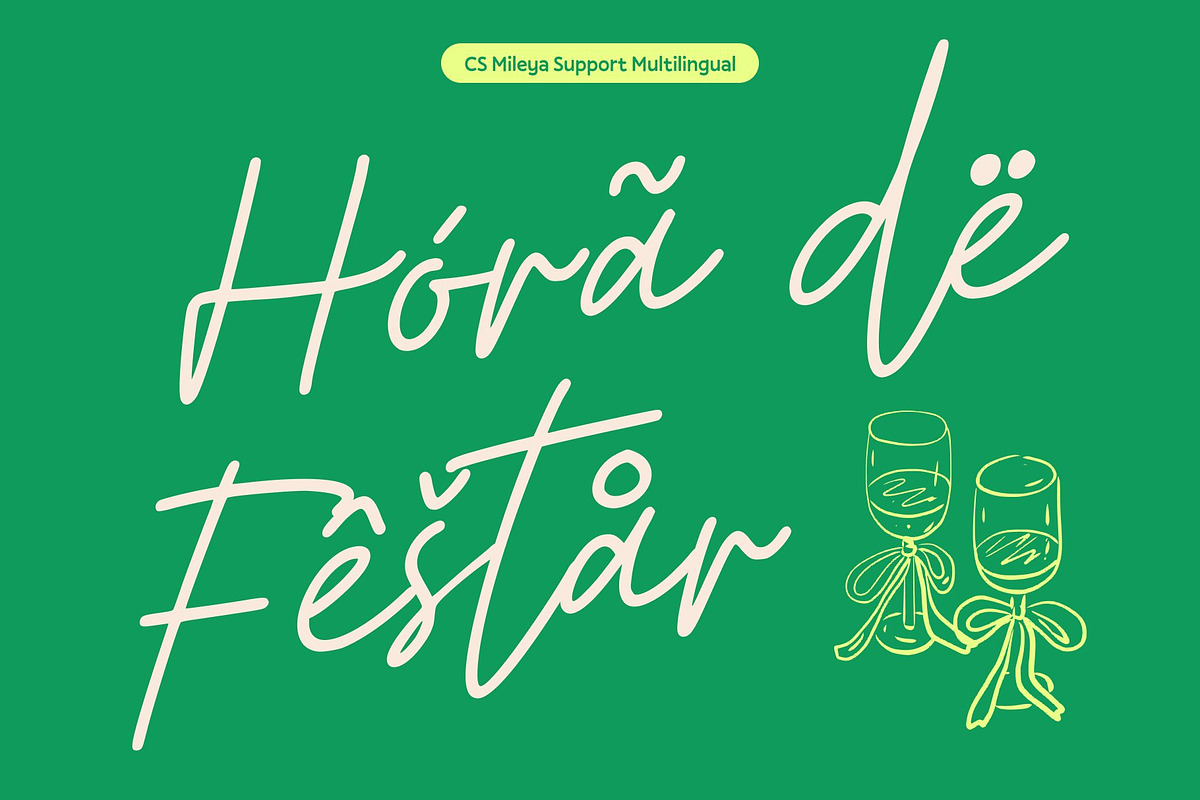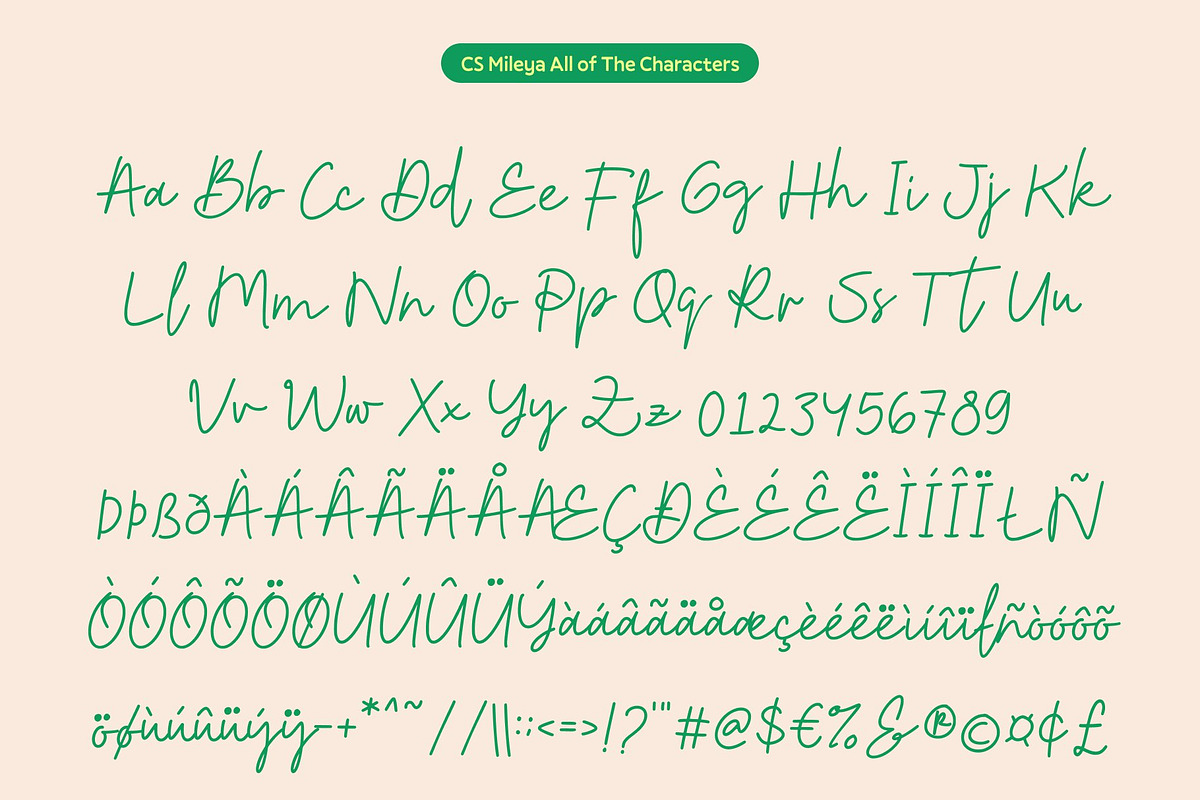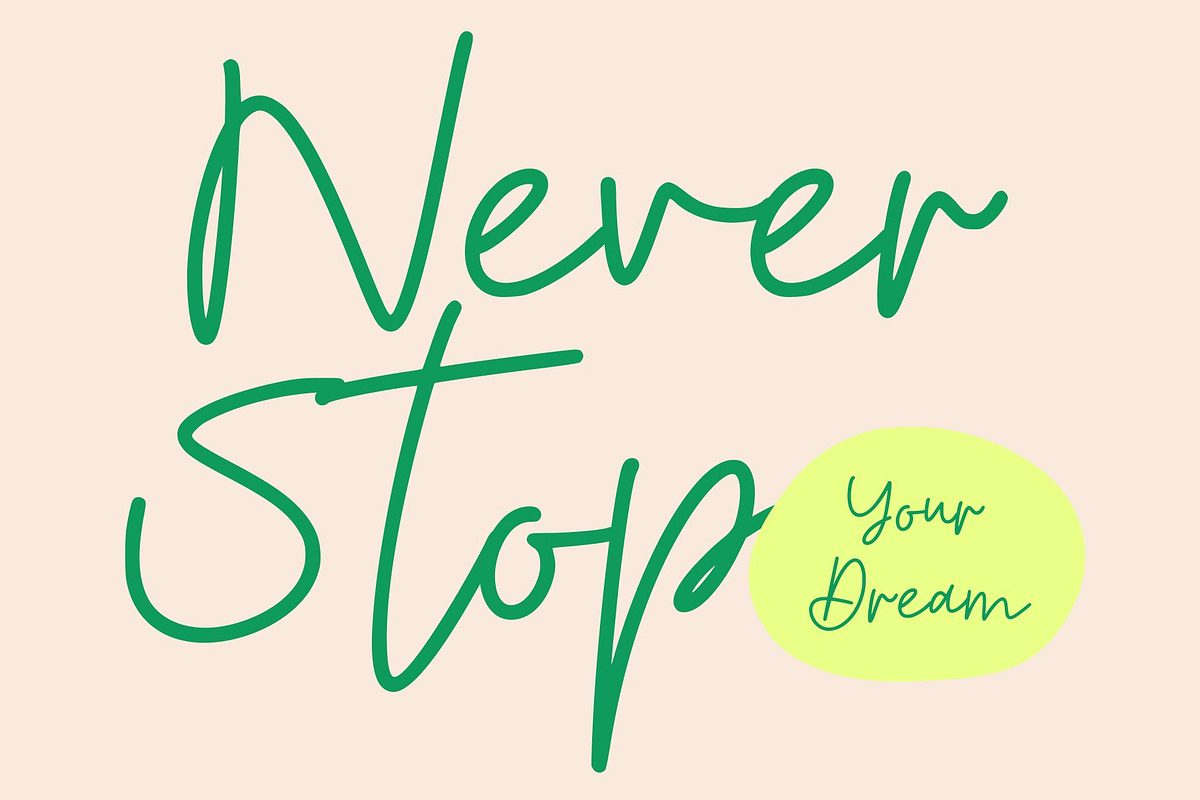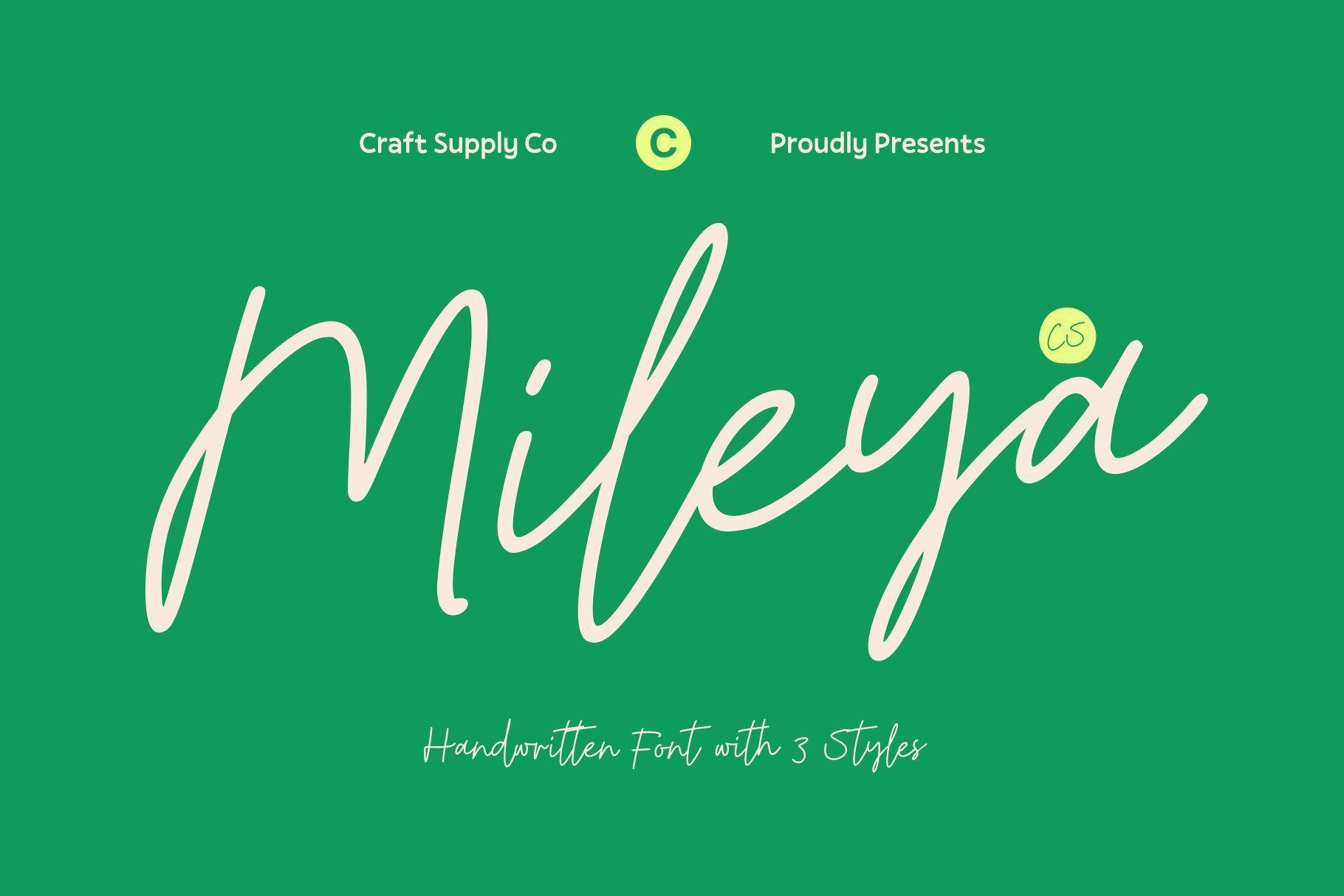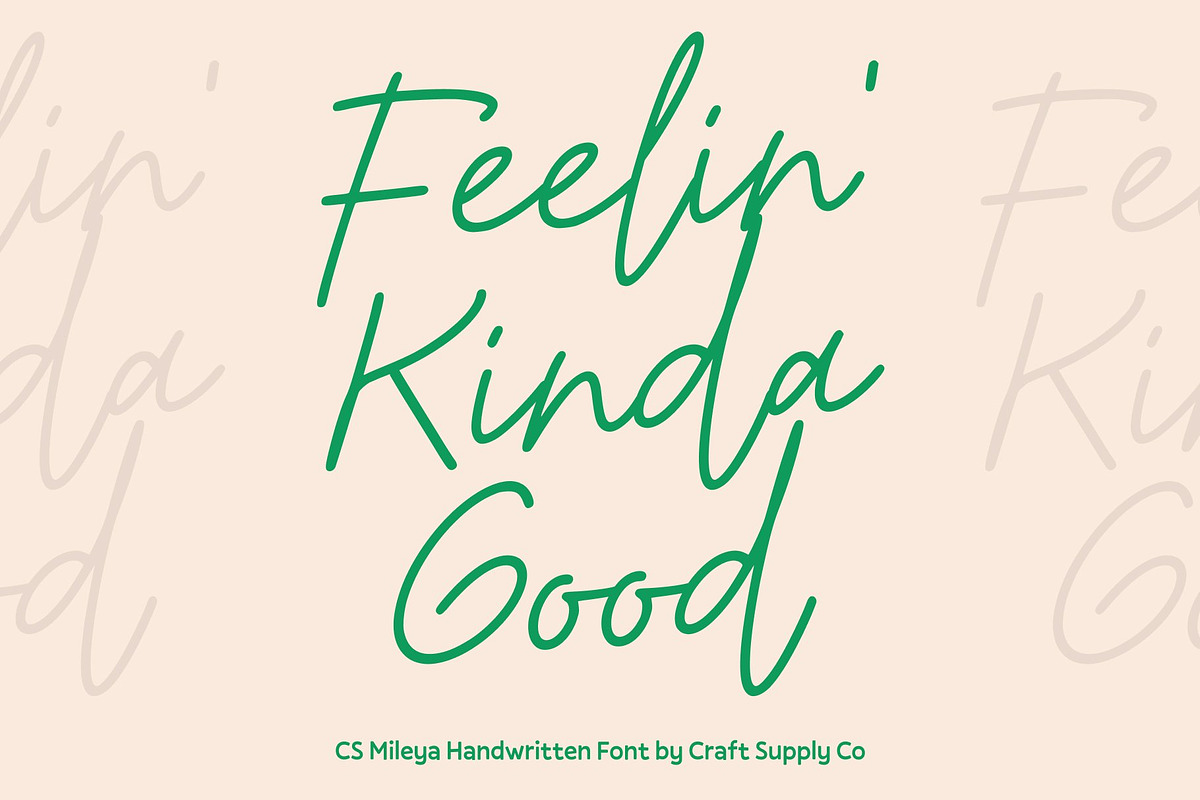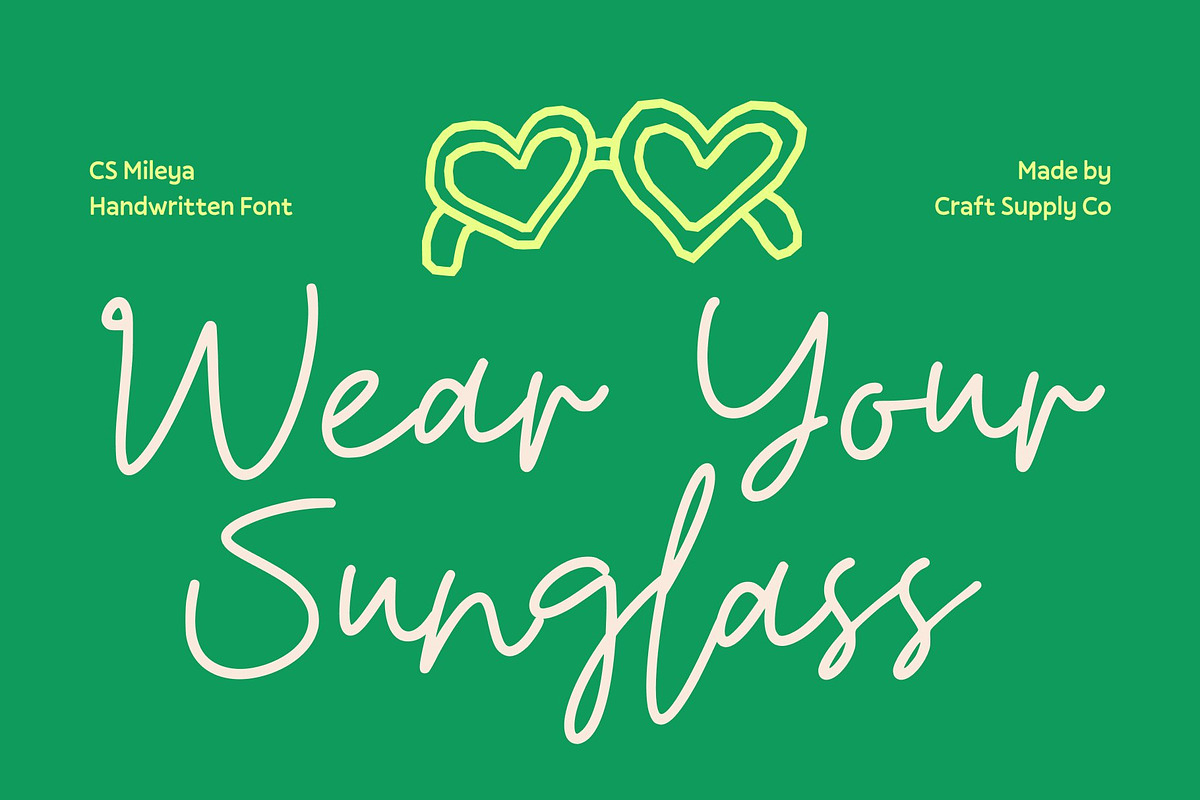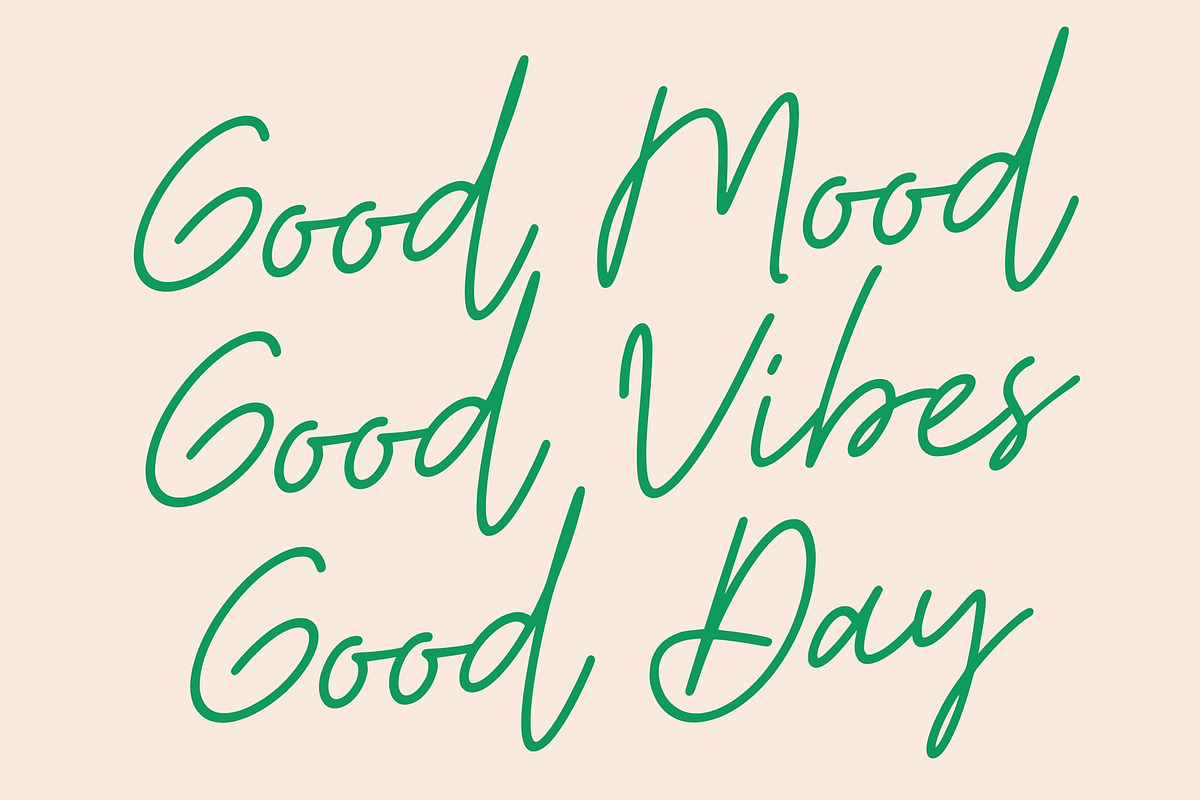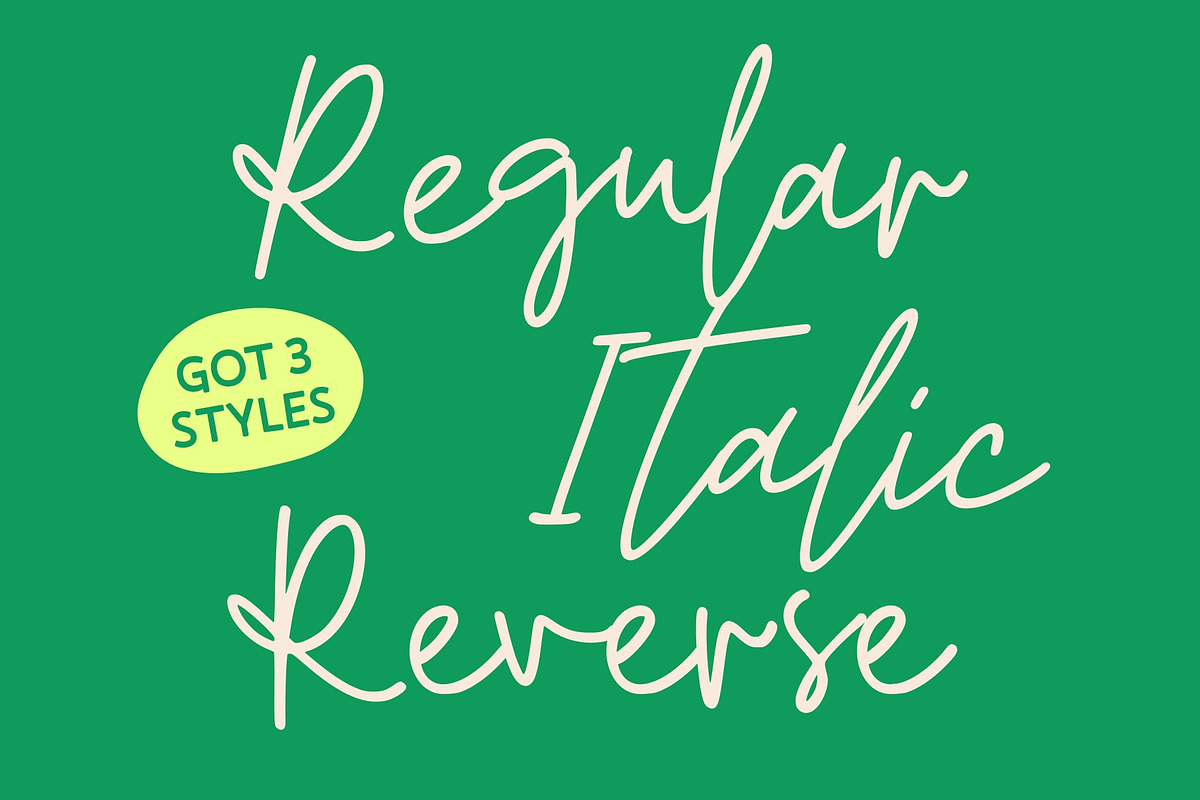
CS Mileya – Stylish Script Font
CS Mileya – Graceful, Stylish, and Modern Script Elegance
A Flowing Script with Contemporary Sophistication This is a stylish script font designed with beautifully flowing strokes and graceful curves. Its modern rhythm gives every letter a smooth, luxurious movement, making your text feel refined and effortlessly elegant. Whether you’re crafting romantic layouts or high-end visuals, this font adds a polished touch that enhances your message with sophistication.
Graceful Curves That Elevate Every Design With its fluid lines and chic calligraphic nuances, this font transforms ordinary text into a stunning visual experience. The gentle bends and sweeping connections give each word an air of exclusivity. This refined script maintains excellent readability while delivering high aesthetic appeal perfect for designs that demand elegance and intentional artistry.
Perfect for Weddings, Fashion, and Luxury Media This font truly excels in premium visual settings. Use it for wedding invitations that feel heartfelt and timeless, fashion branding that exudes modern beauty, or luxury editorials that need a sophisticated script presence. Its upscale style pairs perfectly with minimalist layouts, soft color palettes, and elegant branding concepts.
Versatile, Chic, and Impeccably Crafted Despite its delicate appearance, this font is highly versatile across digital and print media. It adapts beautifully to logos, packaging, magazine spreads, social content, and more. Whenever you need a script font that radiates taste, romance, and contemporary refinement, this font delivers with flawless charm and designer-worthy appeal.
- CS Mileya Regular
- CS Mileya Italic
- CS Mileya Reverse Italic